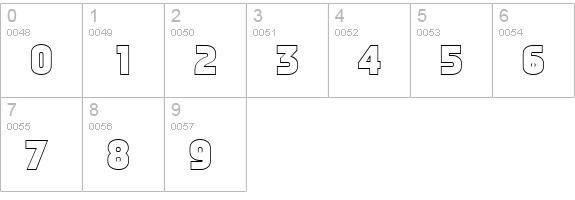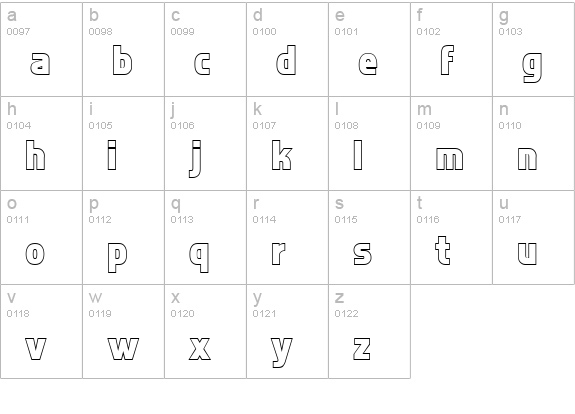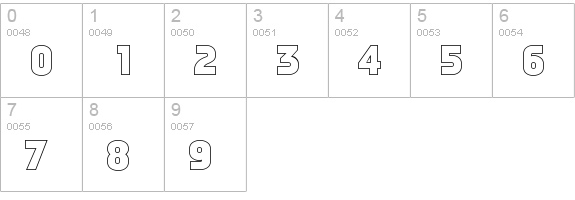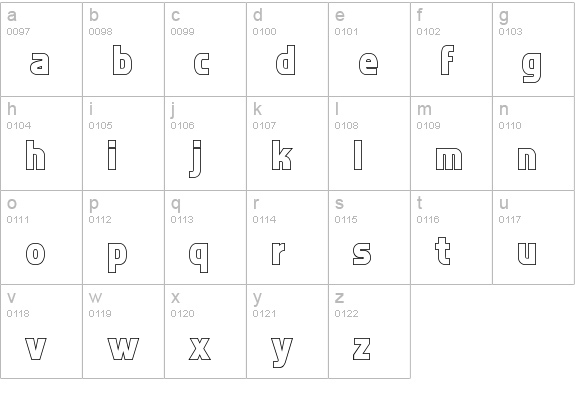
NarbonneOpen Font Details
NarbonneOpen is a modern and stylish font that exudes elegance and sophistication. With its sleek lines and graceful curves, this typeface is perfect for a wide range of design projects, from branding to editorial design. The versatility of NarbonneOpen allows it to be used in various contexts, adding a touch of class and refinement to any layout. One of the best things about NarbonneOpen is that it is completely free to download. You can easily access this stunning font at FontsMarket.com without any cost, making it a valuable addition to your font library. Its availability for free download makes it a popular choice among designers looking for a high-quality font without breaking the bank. Whether you are working on a professional project or a personal creative endeavor, NarbonneOpen is sure to elevate your design with its timeless appeal and modern aesthetic. Download this exquisite font today and see how it can enhance your next design project.